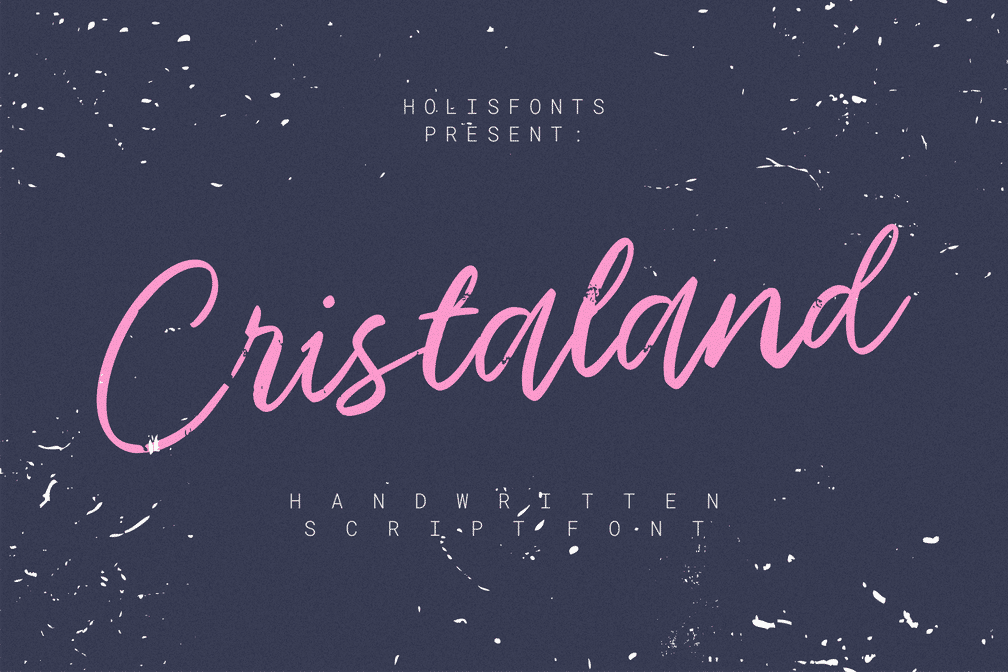
Crystaland Script
Crystaland is a script font made with a marker brush, so this textured font is suitable for social media, logos, branding, etc.
• Uppercase lowercase
• Numeral
• Punctuation
• Multilingual support